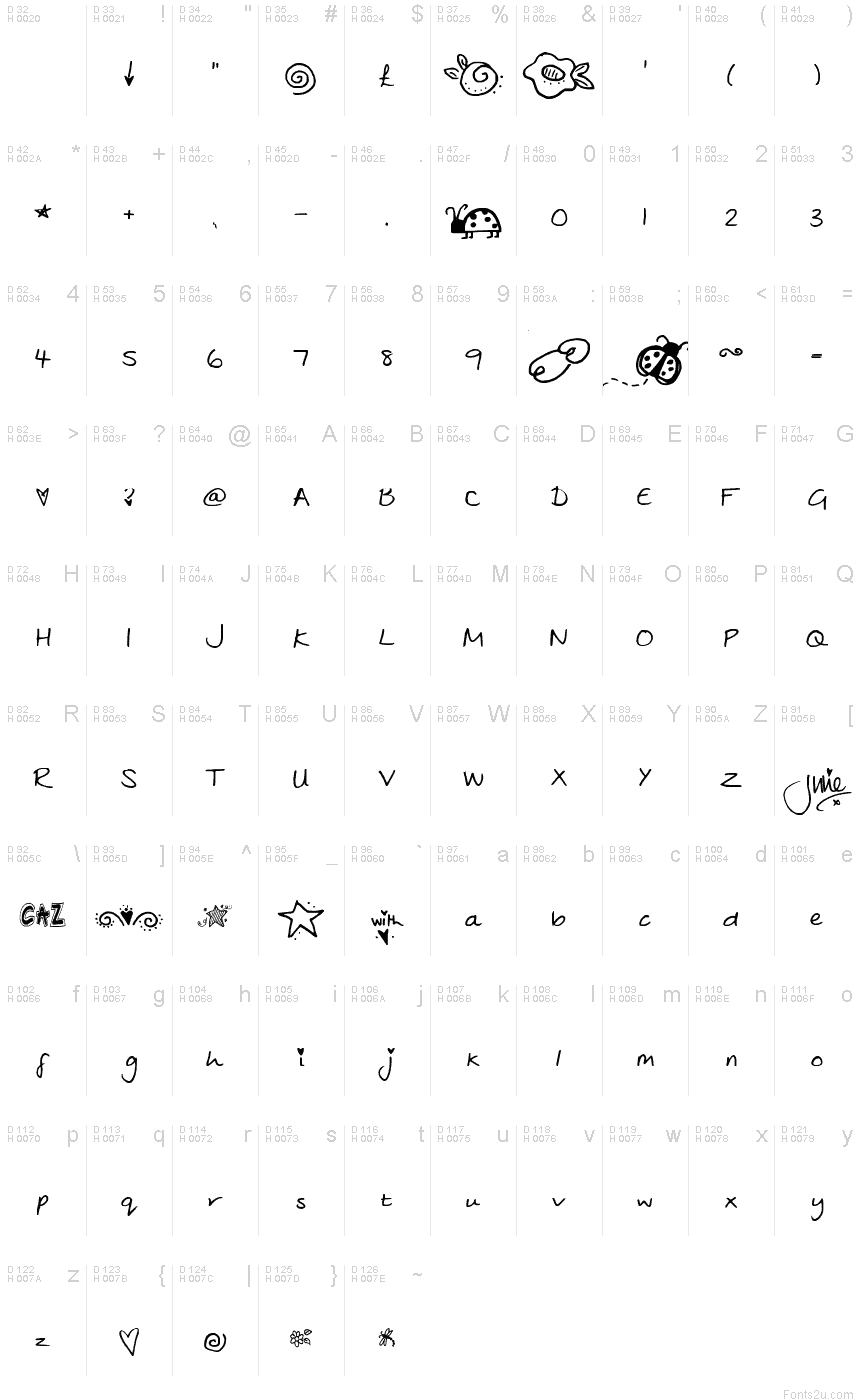
Julies
Julies font by Shellie is a free handwritten font that looks like it’s been sketched with a juicy felt-tip pen. The letters are smooth, rounded, and a little bouncy, with that charming heart-shaped dot giving it a warm, personal touch. It feels like handwriting on a scrapbook page or a note passed between friends-soft, friendly, and instantly approachable.
Using Julies, this free font shines on greeting cards, party invitations, kids’ branding, planner pages, stickers, and playful social media graphics. Its loose rhythm keeps designs feeling relaxed yet readable, especially at medium to large sizes. Pair it with a clean sans-serif for body text to let Julies handle the headlines, names, and short phrases that need a handwritten smile.